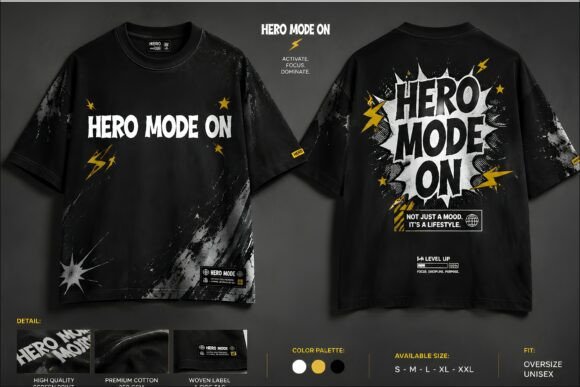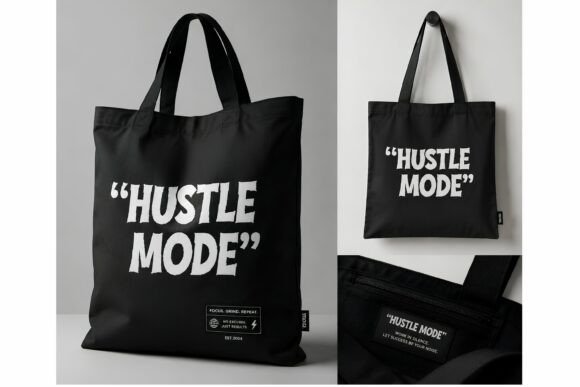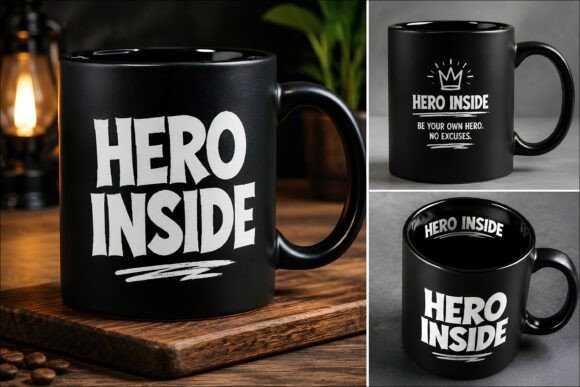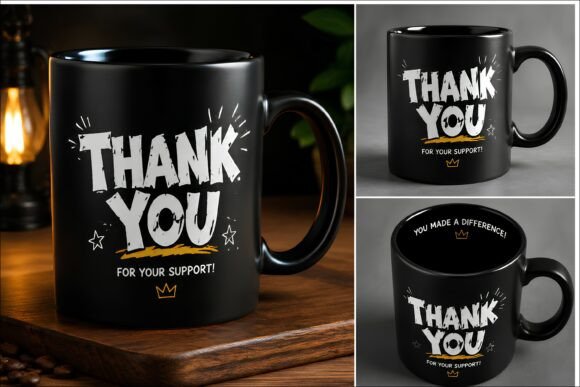
Unleash the Power of Cartoon Strike Font
Do you remember the rush of excitement when you first picked up a comic book or played your favorite arcade game? The bold, eye-catching fonts that jumped off the page, drawing you in and refusing to let go? That’s the magic of the Cartoon Strike Font, a hand-drawn display powerhouse that captures the explosive energy of classic comic books and arcade games.
Designed to add a loud, block-busting presence to your designs, Cartoon Strike Font is perfect for comic book text bubble graphics, gaming stream overlays, playful toy packaging logos, youth apparel printing, animated movie title screens, and high-energy YouTube thumbnails. With its chunky, blocky letterforms and rugged chiseled cutouts, this font is an exceptional design asset that’s sure to make your words stand out.
Cartoon Strike Font Key Features
- Font Family: Cartoon Strike Font is a sans-serif font family designed for digital and print use.
- Unique Characteristics: Cartoon Strike Font features a playful, hand-drawn style with bold lines and rounded edges, giving it a distinctive and whimsical feel.
Cartoon Strike Font Review
Overall, I think the Cartoon Strike Font has some interesting qualities that could make it a great choice for the right project. ✨
- The bold and playful style of the font makes it perfect for illustrations and graphic novels.
- The large x-height makes it easy to read, even in smaller sizes.
- The font is highly customizable, allowing you to adjust the spacing and style to suit your needs.
However, there are a few limitations to consider ⚠️
- The font may not be suitable for professional or formal documents, as it has a somewhat childish feel to it.
- The font is not optimized for digital use, which can lead to pixelation and blurry text.
- The font is not part of a comprehensive family, meaning you may not have access to matching italics, bolds, and other styles.
Overall, I think the Cartoon Strike Font is a fun and creative choice, but it’s not for every project. If you’re looking for a bold and playful font for a children’s book or graphic novel, this could be a great choice. But if you need a more professional or formal font, you may want to consider other options.
Getting the Most Out of Cartoon Strike Font
To get the most out of Cartoon Strike Font, try combining it with bold colors and playful graphics. This font is perfect for creating eye-catching social media posts, advertisements, and children’s materials.
Cartoon Strike Font is commonly used for:
- Social media posts
- Advertisements
- Children’s materials (e.g. coloring books, educational materials)
- Party invitations
Alternatives to Cartoon Strike Font
Great Vibes is a beautiful, handwritten font perfect for creating a fun and playful atmosphere. It’s ideal for use in posters, invitations, and other graphics where a casual, laid-back feel is desired. Compared to Cartoon Strike Font, Great Vibes has a more elegant and refined look, making it suitable for a wider range of designs.
Caviar Dreams
Caviar Dreams is a luxurious, cursive font that exudes sophistication and glamour. It’s perfect for use in high-end designs, such as wedding invitations, luxury branding, and fine art prints. While Cartoon Strike Font is more playful, Caviar Dreams is more elegant and refined, making it a better choice for designs that require a touch of luxury.
Comic Neue
Comic Neue is a modern, sans-serif font that’s perfect for creating a fun and approachable atmosphere. It’s ideal for use in comics, cartoons, and other graphics where a playful, informal feel is desired. Compared to Cartoon Strike Font, Comic Neue is more versatile and can be used in a wider range of designs, from children’s books to advertising campaigns.
No, Cartoon Strike Font is a copyrighted font and cannot be modified or customized without permission from the designer. However, you can use the font in conjunction with other design elements to create unique and custom designs.
Q: Is Cartoon Strike Font compatible with screen readers and accessibility software?
Yes, Cartoon Strike Font is designed to be compatible with screen readers and accessibility software. The font is optimized for digital use and meets the Web Content Accessibility Guidelines (WCAG 2.1) for readability and legibility.